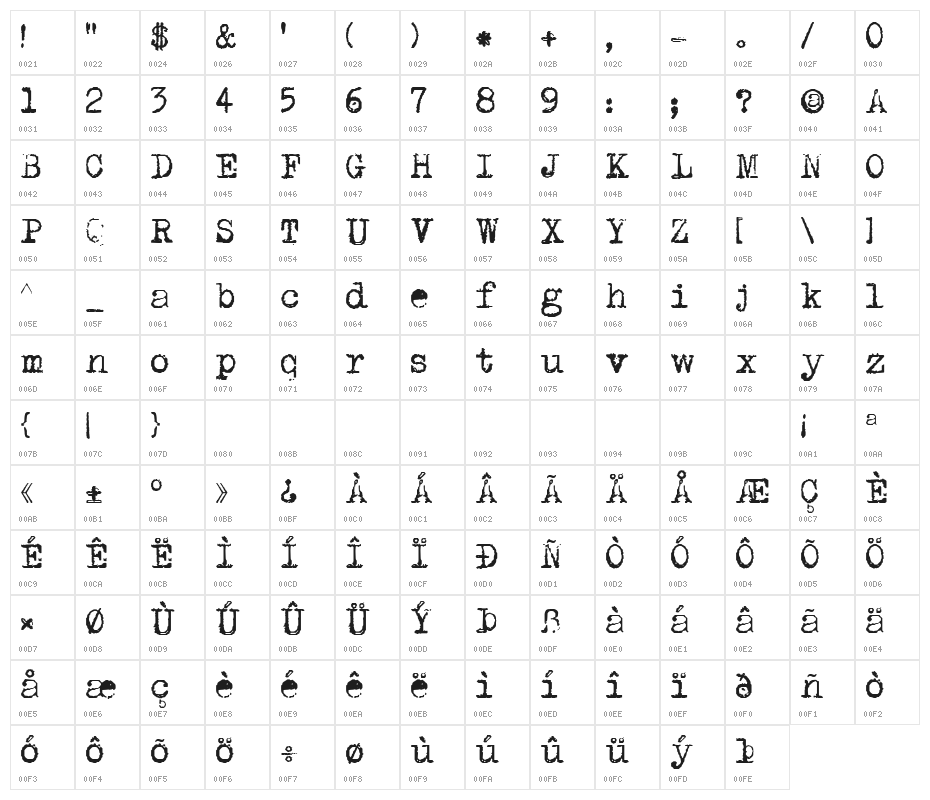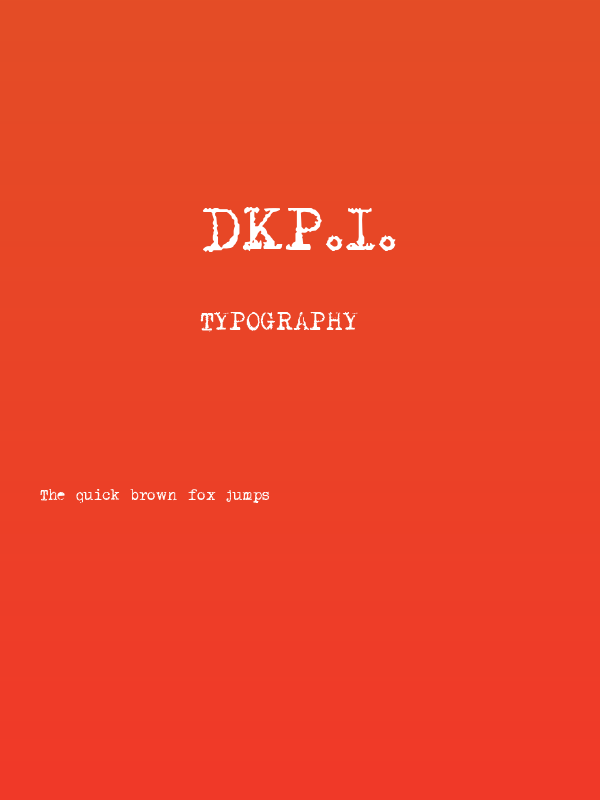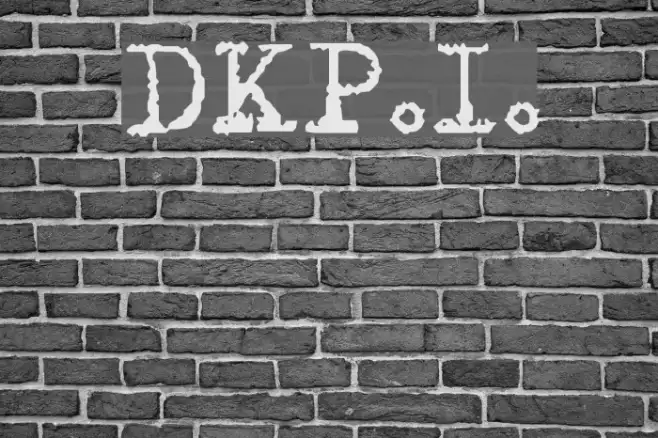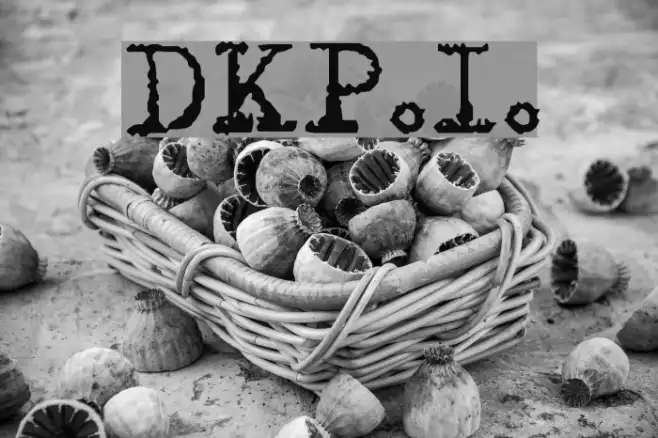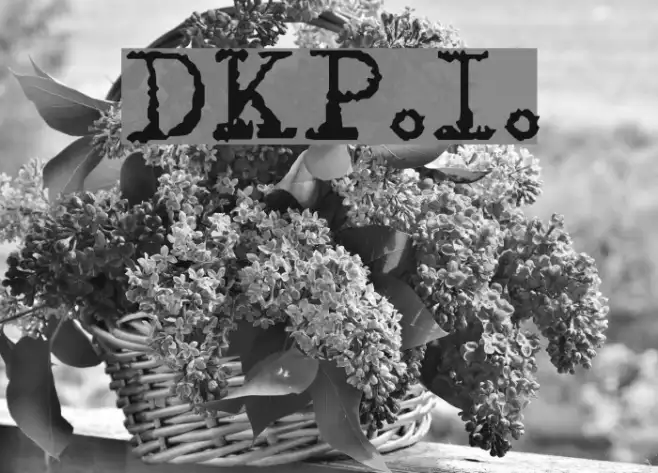
DKP.I. Font
DKP.I. Description
This font features a distressed, grunge style with a typewriter-like appearance. The characters are bold and have a rough, textured look, giving them a vintage and worn feel. The uppercase and lowercase letters maintain a consistent style, with slight variations in texture that add to the overall aesthetic. Numbers and special characters follow the same design, ensuring a cohesive look across all elements. This font is ideal for projects that require a rugged, industrial, or retro vibe.
| Proposed Projects | Ideal for vintage posters, album covers, branding for rustic or industrial-themed businesses, and creative projects needing a retro touch. |